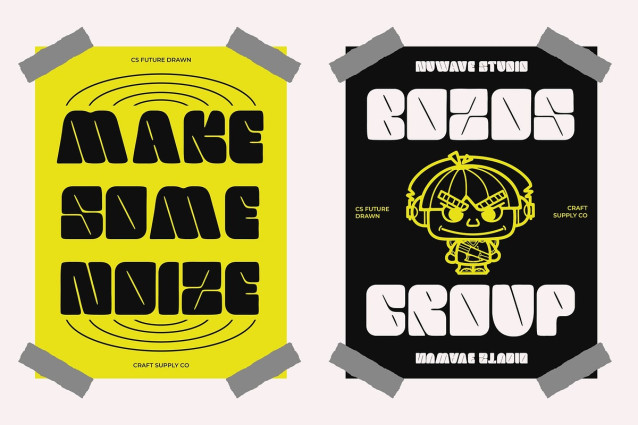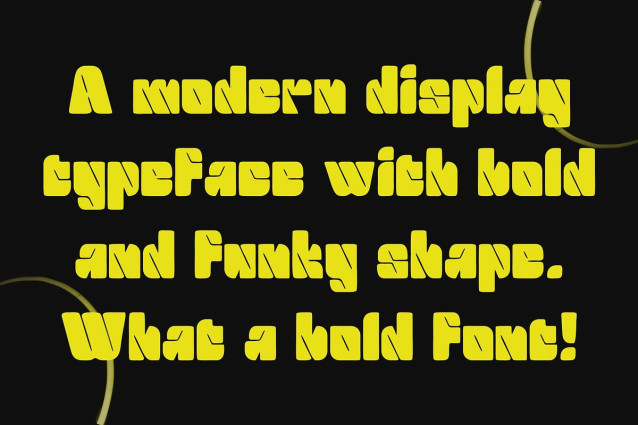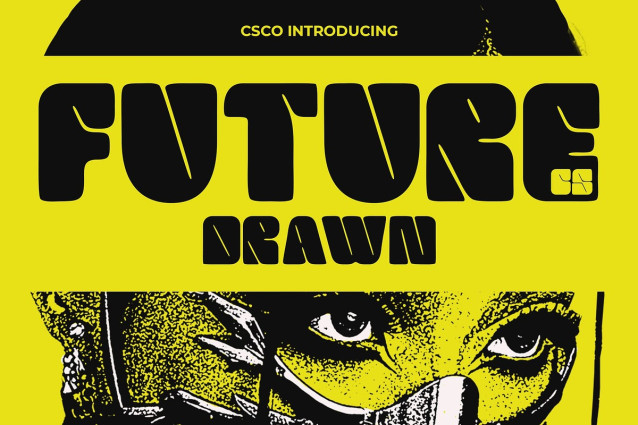
CS Future Drawn Font
CS Future Drawn Font is a modern sans serif font that delivers a powerful visual statement with its bold, eye-catching design. The font’s strong lines and shapes create an instant impression, making it perfect for designs where you want to grab attention and make an impact. Whether used for headlines, posters, or logos.
Funky Vibe for Playful Energy Adding to its bold structure, this sans serif font carries a funky and eccentric vibe, infusing your designs with a fun and dynamic spirit. The quirky, unconventional shapes reflect a sense of creativity and excitement, making it an ideal choice for youthful and vibrant projects.
Handmade Drawn Effect for Unique Texture The drawn effect in this bold font introduces a handmade, organic texture to the otherwise clean and bold design. This layer of personality adds depth and uniqueness to each letterform, enhancing the overall aesthetic with a sense of authenticity and craftsmanship.
Perfect for Creative, Youth-Oriented Designs This font is ideal for any creative project looking to express energy, creativity, and youthfulness. It’s perfect for event posters, product branding aimed at a younger demographic, or any visual design that seeks to stand out and make a statement. Whether you’re creating promotional materials, advertisements, or social media content.